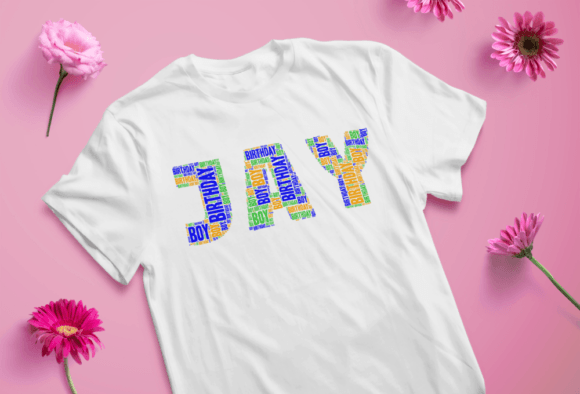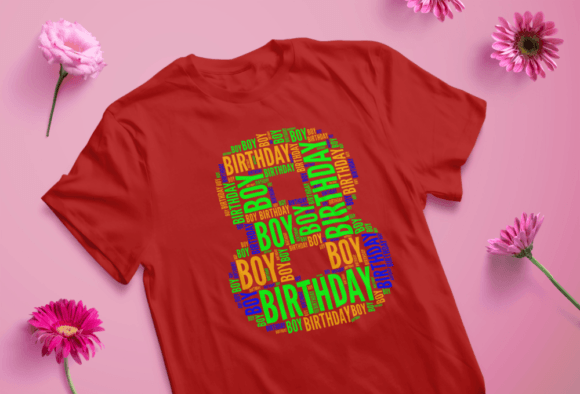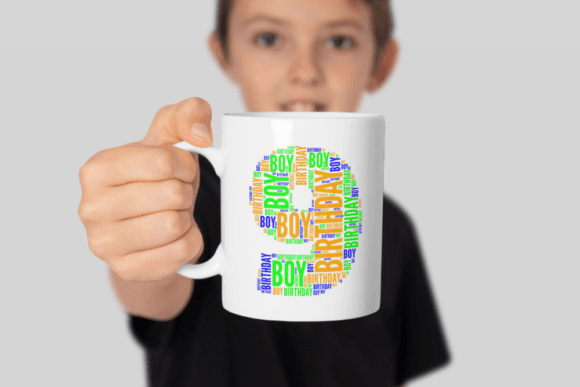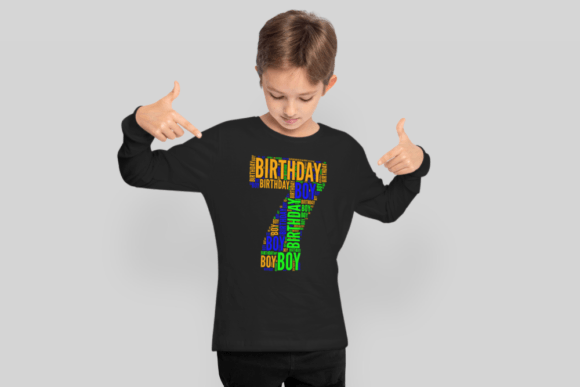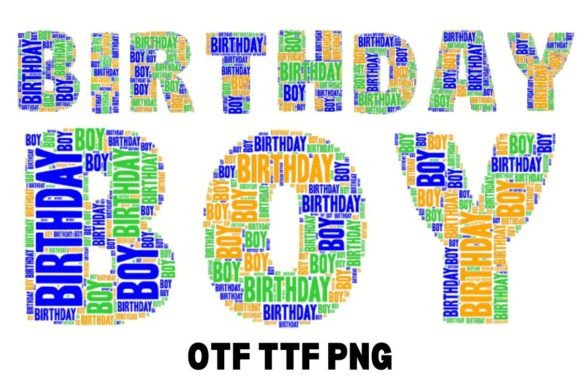
Celebrate with Style: The Ultimate Guide to Birthday Boy Font
I’ll never forget the time I was working on a birthday party invitation for my niece’s special day. I had all the design elements ready – the cute illustrations, the party details, and the colorful background – but something was missing. The font I was using just didn’t have that festive feel I was going for. That’s when I stumbled upon the Birthday Boy Font, and it completely transformed my design! 🎉 In this article, I’ll share my experience with this vibrant font, its features, and how to make the most of it in your designs.
First Impressions: What I Love About Birthday Boy Font
The Birthday Boy Font is a delightful set of alphabet and numbers colored font, available in both OTF and PNG formats. Here are some things I love about it:
- ✨ Vibrant and festive colors that add a pop of fun to any design
- 🎉 Perfect for birthday invitations, banners, and creative designs for kids and adults alike
- 🌈 Unique and playful design that’s sure to grab attention
No font is perfect, and the Birthday Boy Font has a few quirks to keep in mind:
The Story Behind Birthday Boy Font
The Birthday Boy Font was designed with one goal in mind: to bring a little extra joy and festivity to birthday celebrations. The designer, a self-proclaimed party animal, wanted to create a font that would make birthdays feel more special and unique. With its vibrant colors and playful design, it’s no wonder this font has become a favorite among designers and crafters.